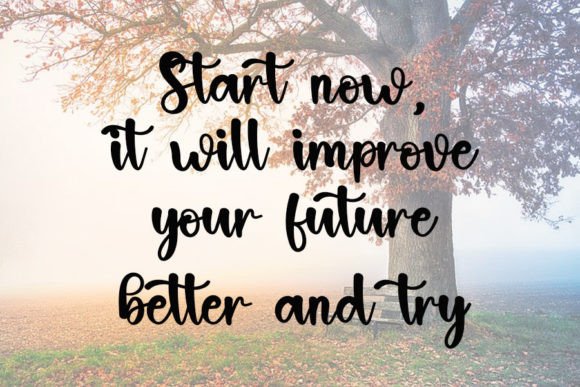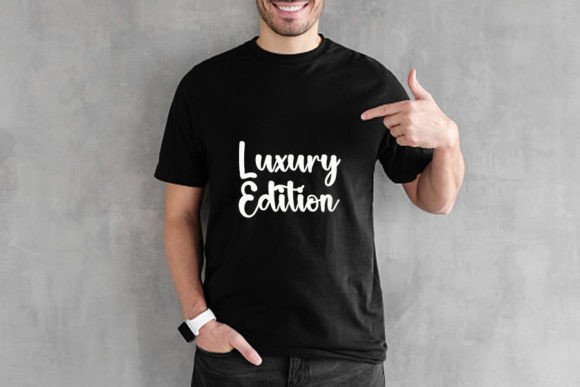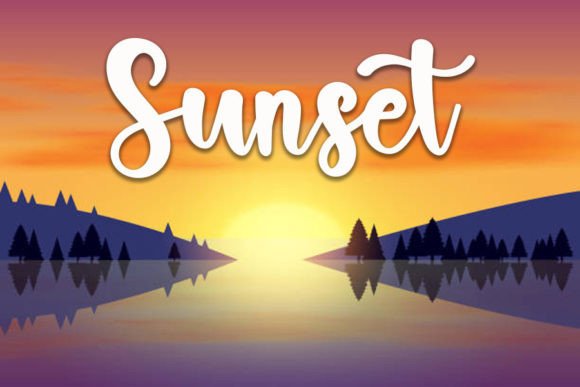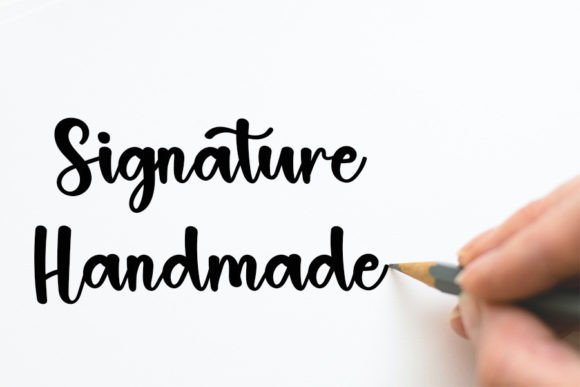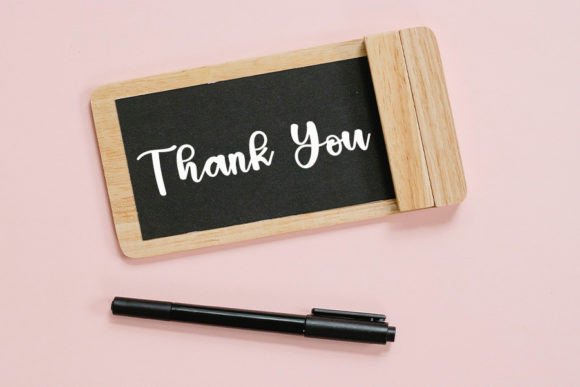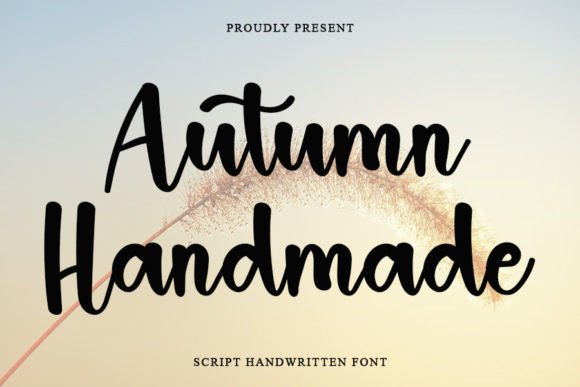
The Perfect Font for Your Creative Projects: Autumn Handmade
I still remember the frustration of working on a DIY project, pouring my heart and soul into it, only to get stuck on one thing: finding the right font. I was creating a custom invitation for a friend’s wedding, and I wanted it to feel personal and handmade. Hours of scrolling through font libraries and trying out different ones left me feeling overwhelmed. That’s when I stumbled upon Autumn Handmade, a cute and casual handwritten font that instantly captured the warm, fuzzy feeling I was going for.
An Honest Review of Autumn Handmade
So, what makes Autumn Handmade so special? Let’s dive into the good stuff and, of course, a few quirks I’ve noticed.
- ✨ Incredibly friendly feel: Autumn Handmade has a warm, inviting vibe that’s perfect for creating a personal connection with your audience.
- ✅ Versatile: Whether you’re designing for Instagram, crafting DIY projects, or creating professional materials, this font adapts seamlessly.
- 💫 Elegant yet casual: It strikes the perfect balance between being refined and laid-back, making it suitable for a wide range of creative endeavors.
While Autumn Handmade is fantastic, there are a couple of things to keep in mind:
- ⚠️ Legibility at small sizes: Like many handwritten fonts, it can get a bit fuzzy when scaled down. It’s best used at larger sizes for optimal impact.
- 🤔 Glyph variety: While it has a nice selection of glyphs and stylistic alternates, you might find yourself wishing for a bit more variation in certain contexts.
The Story Behind Autumn Handmade
While the origins of Autumn Handmade might be shrouded in mystery, it’s easy to imagine a designer sitting amidst fall leaves, crafting a font that’s as warm and inviting as a crackling fire. The goal was to create a font that feels handmade, yet versatile enough for any creative project. And I think that’s exactly what they’ve achieved.
| Font Name | Autumn Handmade Font |
| Author | ONE DESIGN |
Q: What makes Autumn Handmade unique?
A: Its incredibly friendly feel and versatility make it stand out. It’s perfect for both casual and professional projects.
Q: Does Autumn Handmade support OpenType features?
A: Yes, it does. You can access a range of OpenType features, including ligatures and stylistic alternates, to add personality to your text.
Q: Is Autumn Handmade difficult to read at small sizes?
A: Like many handwritten fonts, it works best at larger sizes. For optimal legibility, it’s recommended to use it at 20px or larger.